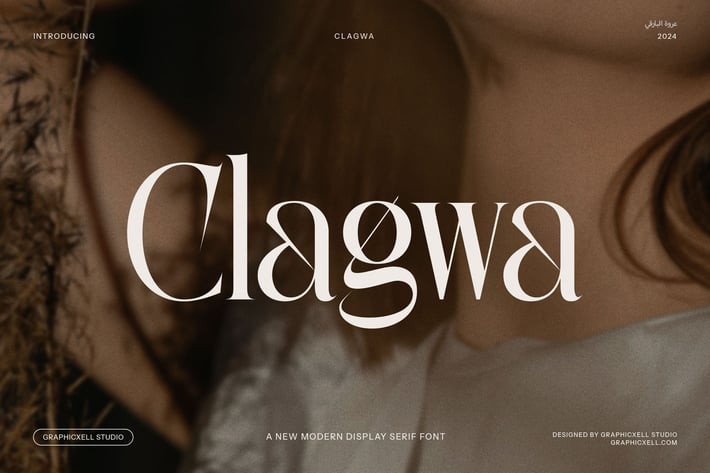
Clagwa - Elegant Display Serif Font
Clagwa Elegant Display Serif Font – A Timeless Fusion of Modern Elegance and Vintage Flair
Introducing Clagwa Elegant Display Serif Font, a stunning typeface designed to bring sophistication and charm to any creative project. With its bold, refined serifs and sleek curves, Clagwa combines the best of both modern design and vintage elegance, offering a distinctive style that stands out in any context.
This versatile font is perfect for a wide range of design applications, including logos, branding, websites, magazines, and advertisements. Its unique blend of elegance and readability makes it an ideal choice for high-end product packaging, boutiques, fashion brands, and luxury labels. Whether you're creating a premium brand identity, designing an exclusive product, or crafting engaging marketing materials, Clagwa elevates your design with timeless beauty.
The Clagwa font's combination of modern proportions and classic serifs creates a sense of prestige, making it suitable for both print and digital mediums. Its distinctive character works effortlessly across magazine layouts, advertisement campaigns, and website typography, ensuring your message is communicated with style and clarity.
Whether you're working in fashion, food branding, or luxury product design, Clagwa adds an air of sophistication that speaks to your audience’s desire for quality and elegance. With its versatile style and bold yet graceful presence, Clagwa Elegant Display Serif Font is the perfect choice for brands and creators who want to make a lasting impact.
Embrace the beauty and refinement of Clagwa and elevate your next design project with a font that offers both timeless elegance and modern appeal.
Introducing Clagwa Elegant Display Serif Font, a stunning typeface designed to bring sophistication and charm to any creative project. With its bold, refined serifs and sleek curves, Clagwa combines the best of both modern design and vintage elegance, offering a distinctive style that stands out in any context.
This versatile font is perfect for a wide range of design applications, including logos, branding, websites, magazines, and advertisements. Its unique blend of elegance and readability makes it an ideal choice for high-end product packaging, boutiques, fashion brands, and luxury labels. Whether you're creating a premium brand identity, designing an exclusive product, or crafting engaging marketing materials, Clagwa elevates your design with timeless beauty.
The Clagwa font's combination of modern proportions and classic serifs creates a sense of prestige, making it suitable for both print and digital mediums. Its distinctive character works effortlessly across magazine layouts, advertisement campaigns, and website typography, ensuring your message is communicated with style and clarity.
Whether you're working in fashion, food branding, or luxury product design, Clagwa adds an air of sophistication that speaks to your audience’s desire for quality and elegance. With its versatile style and bold yet graceful presence, Clagwa Elegant Display Serif Font is the perfect choice for brands and creators who want to make a lasting impact.
Embrace the beauty and refinement of Clagwa and elevate your next design project with a font that offers both timeless elegance and modern appeal.